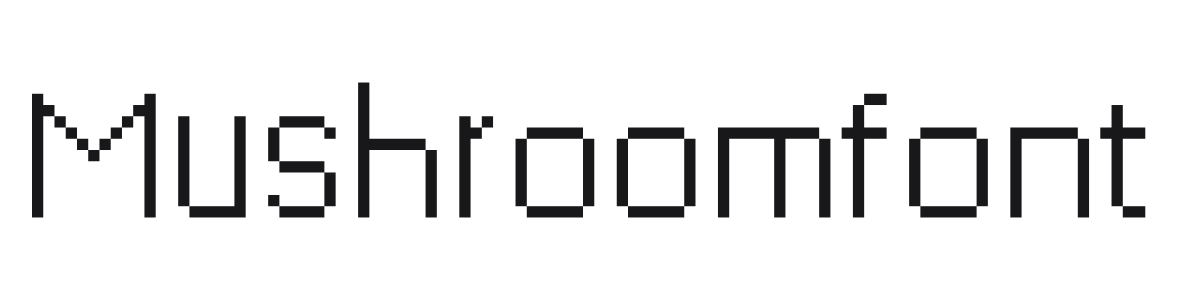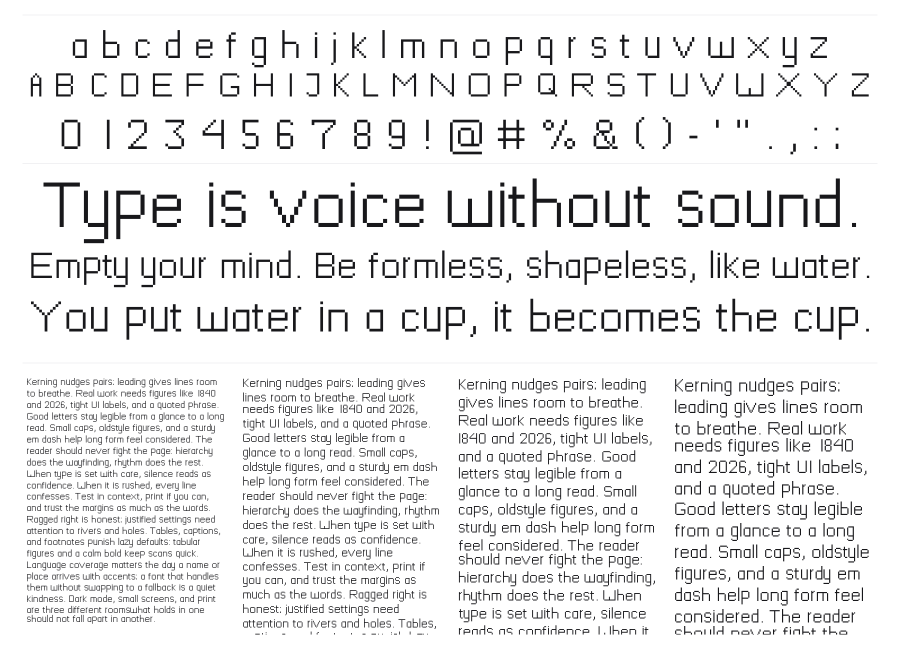
Mushroomfont
Mushroomfont is a bitmap pixel font built on a strict square-pixel grid with the chunky charm of early 8-bit computing. Every character is assembled from discrete pixel blocks with no stroke contrast, giving it an unmistakable lo-fi digital quality. It works well for game UIs, retro-themed posters, and any project leaning into nostalgic digital aesthetics.